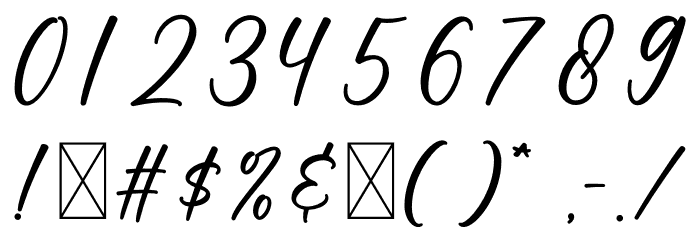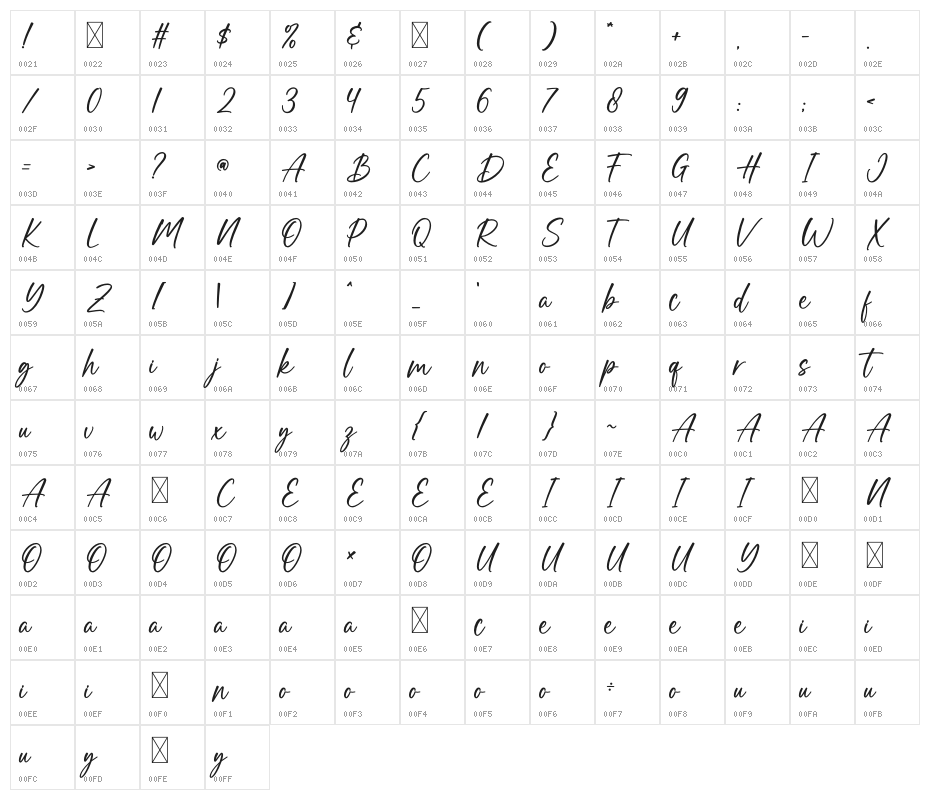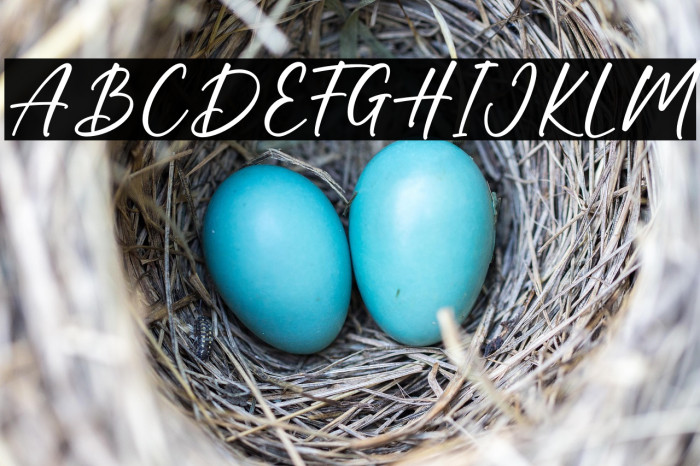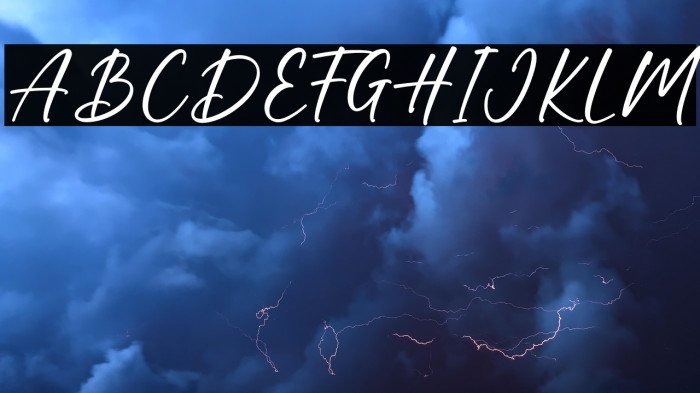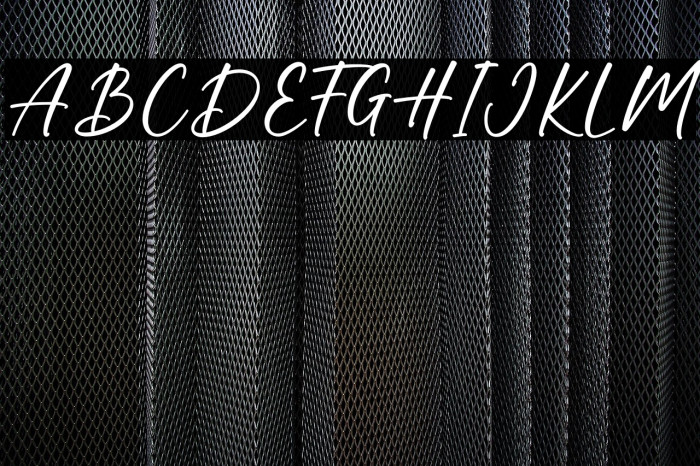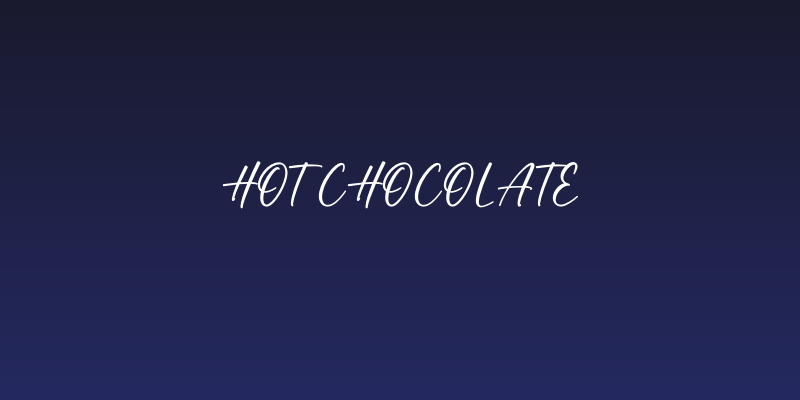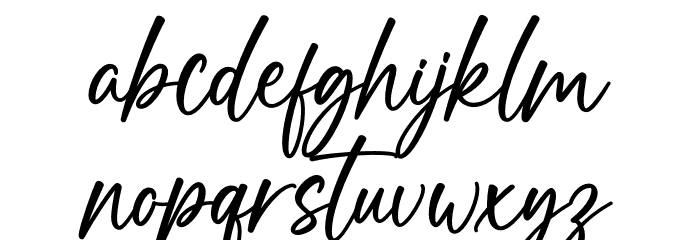
Hot Chocolate Font
Hot Chocolate Description
This font features a flowing, cursive style with a handwritten appearance. The characters are elegantly connected, creating a sense of fluidity and movement. The uppercase letters are slightly more formal, while the lowercase letters maintain a casual, approachable feel. Numbers and special characters are designed to match the overall aesthetic, ensuring consistency throughout. The strokes vary in thickness, adding a dynamic quality to the text. This font is ideal for projects that require a personal touch, such as invitations, greeting cards, or branding materials.